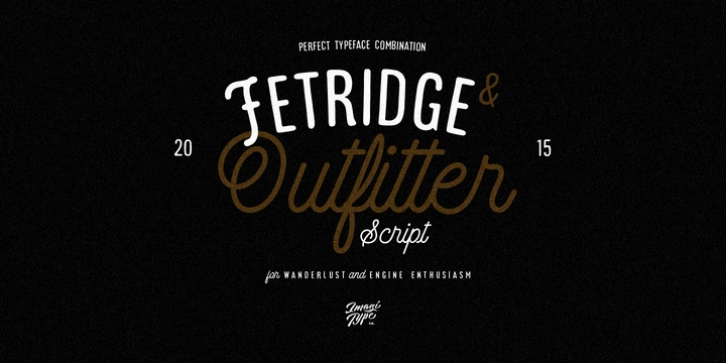
Fetridge was designed by Gilang Purnama Jaya and published by Imagi Type. Fetridge contains 2 styles and family package options.
Fetridge & Outfitter Script is the rounded monolinear typeface that inspired from Wanderlust and engine enthusiasm. The typeface family includes two styles with 3 alternate variations of the ascenders and 12 alternate of descenders. Its wide range of international characters and alternate use of the power of OpenType automatically creates the feel of hand-lettering.